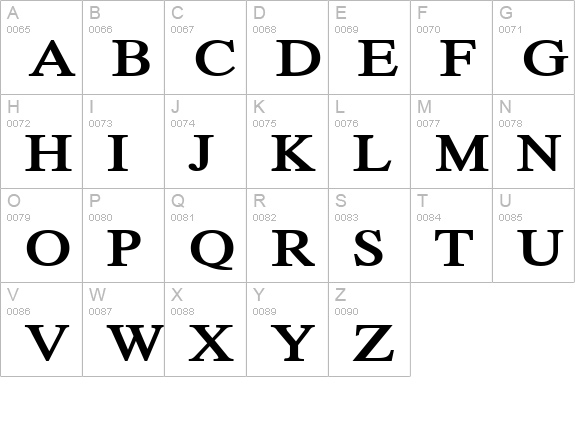
Duke Extended Bold is a strong, high-contrast, extended-width variant in the Duke typeface family \xE2\x80\x94 well suited to headlines, attention-grabbing titles, and strong calls-to-action.
Duke Extended Bold is a striking and versatile typeface that exudes confidence and strength. With its bold and modern design, this font is perfect for making a bold statement in various design projects. Whether used for headlines, posters, branding, or any other creative endeavor, Duke Extended Bold commands attention and leaves a lasting impression. The clean lines and sharp edges of Duke Extended Bold give it a contemporary and sophisticated look, making it ideal for both digital and print applications. Its extended width adds a touch of uniqueness and flair, setting it apart from standard bold fonts. This font is a great choice for designers looking to add a touch of boldness and sophistication to their projects. The best part is that Duke Extended Bold is available for free download at FontsMarket.com. This means that you can easily access and use this high-quality font in your projects without any cost. Don't miss out on the opportunity to enhance your designs with the bold and impactful Duke Extended Bold font.